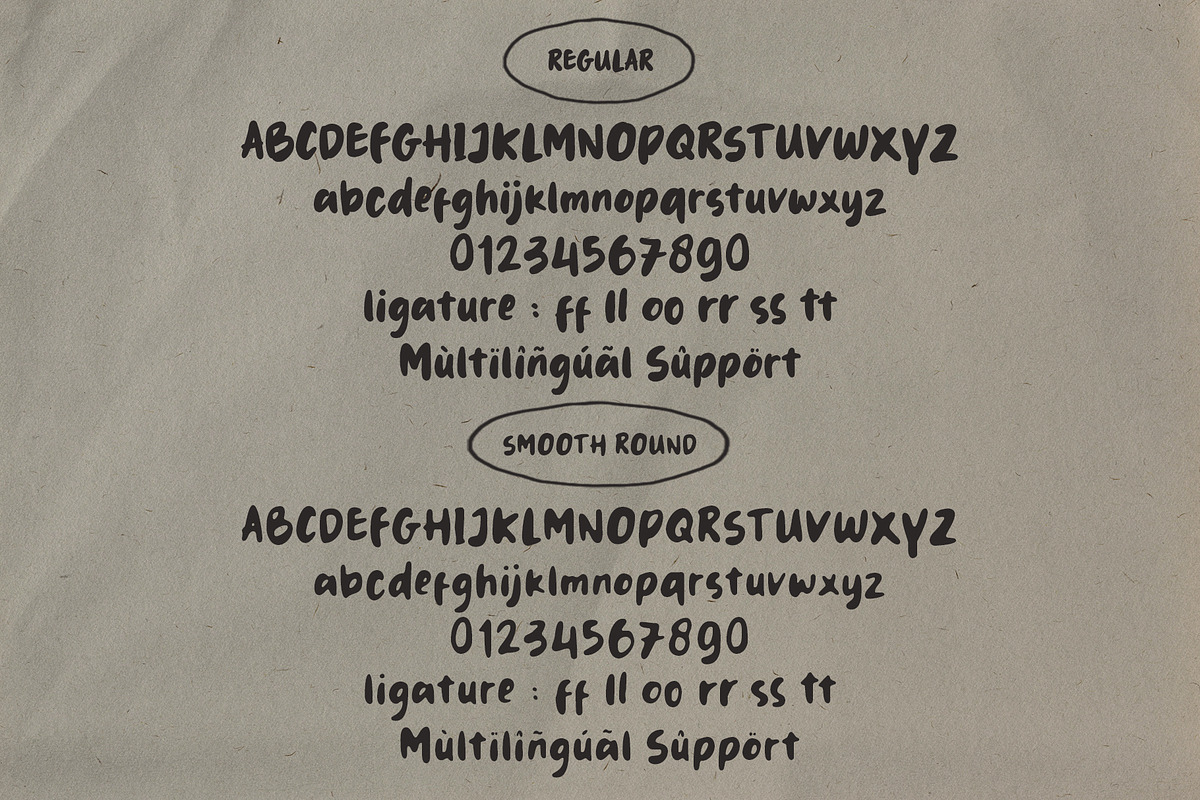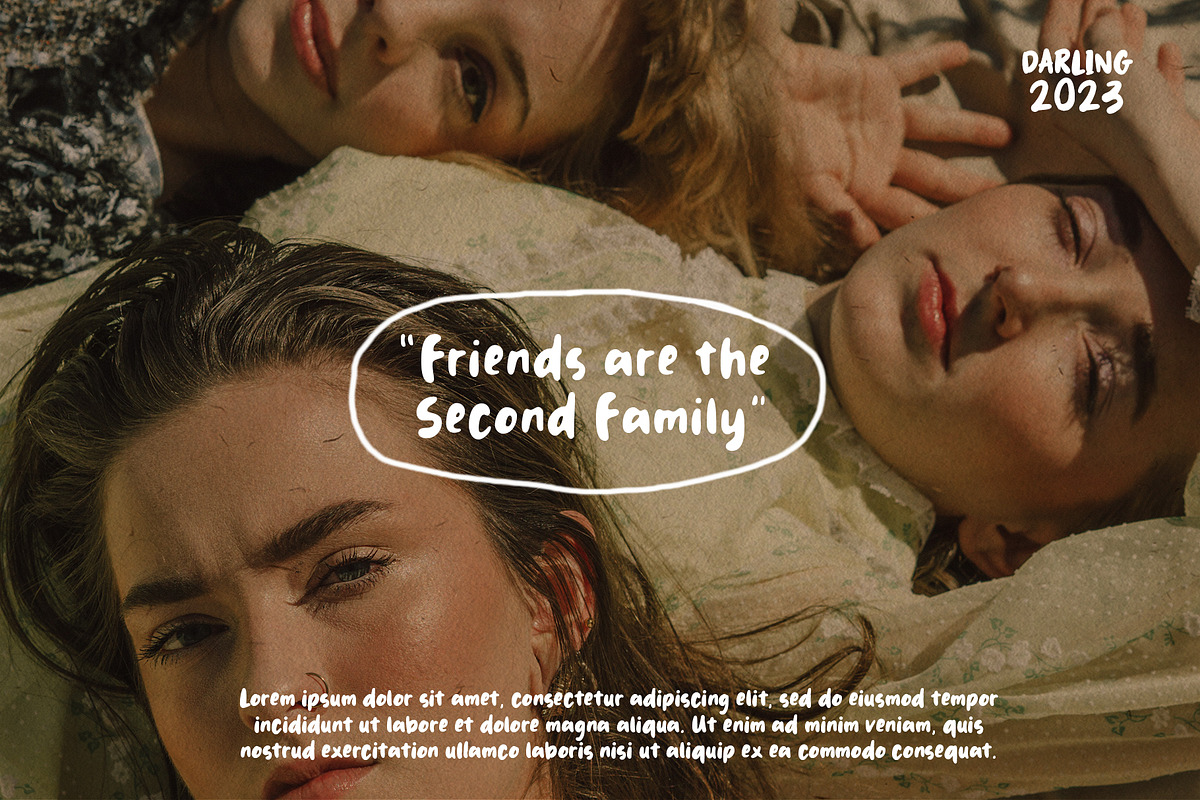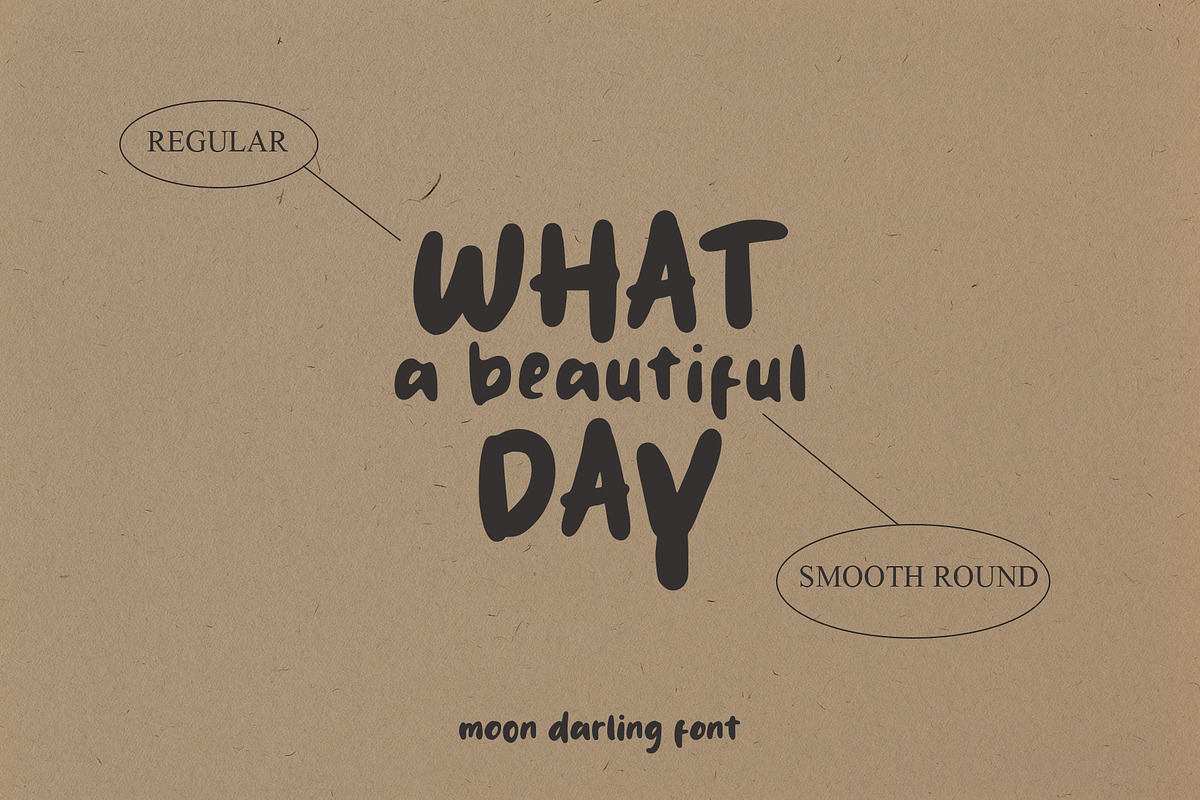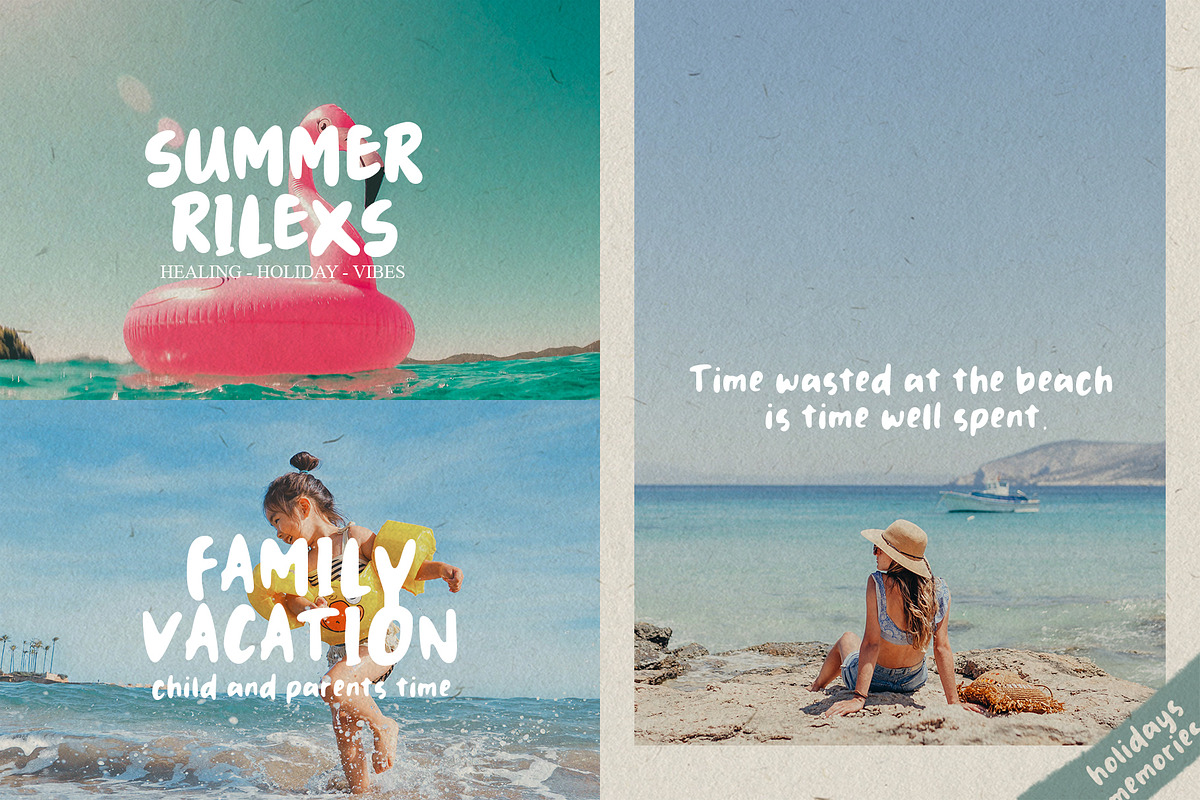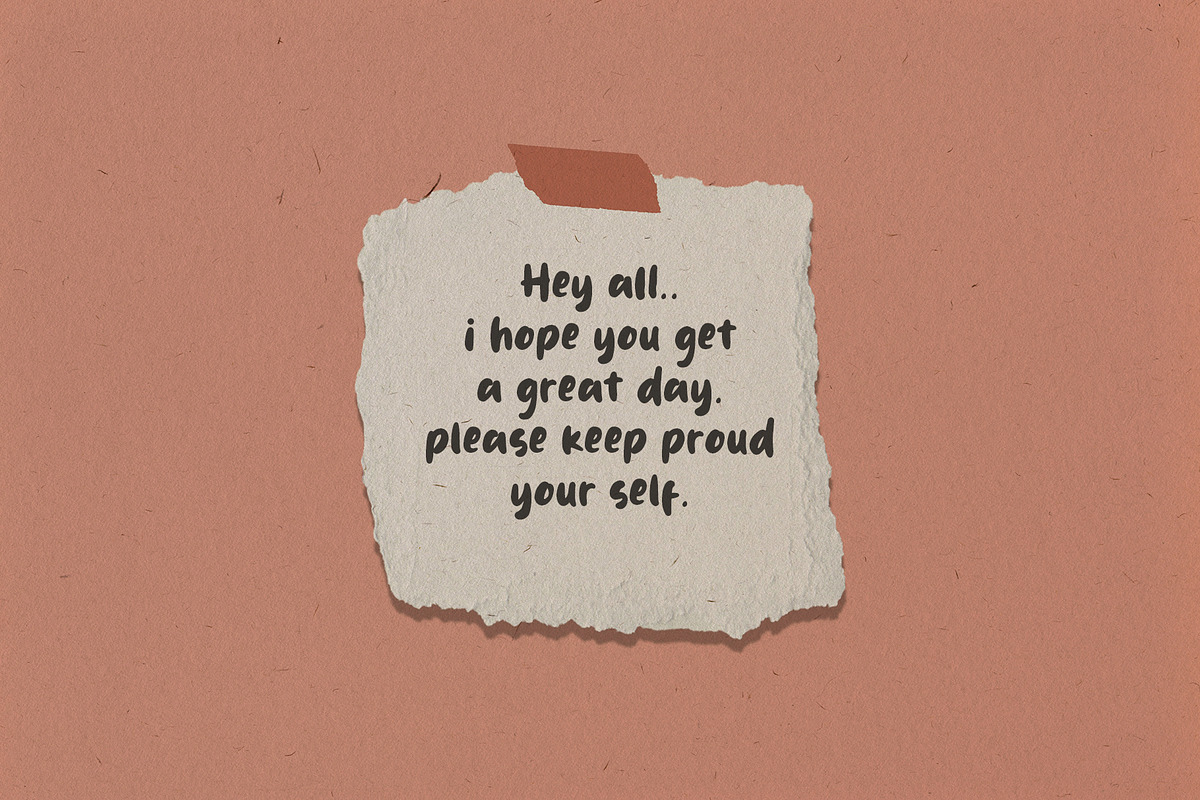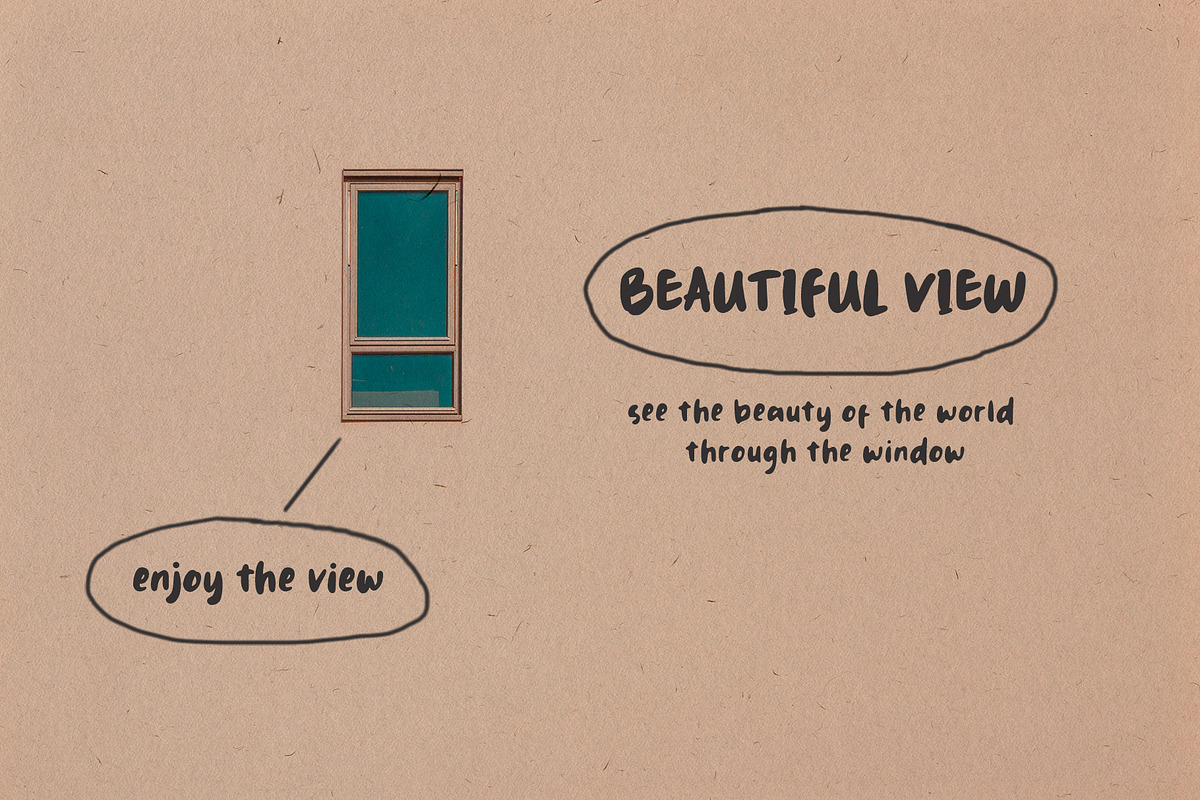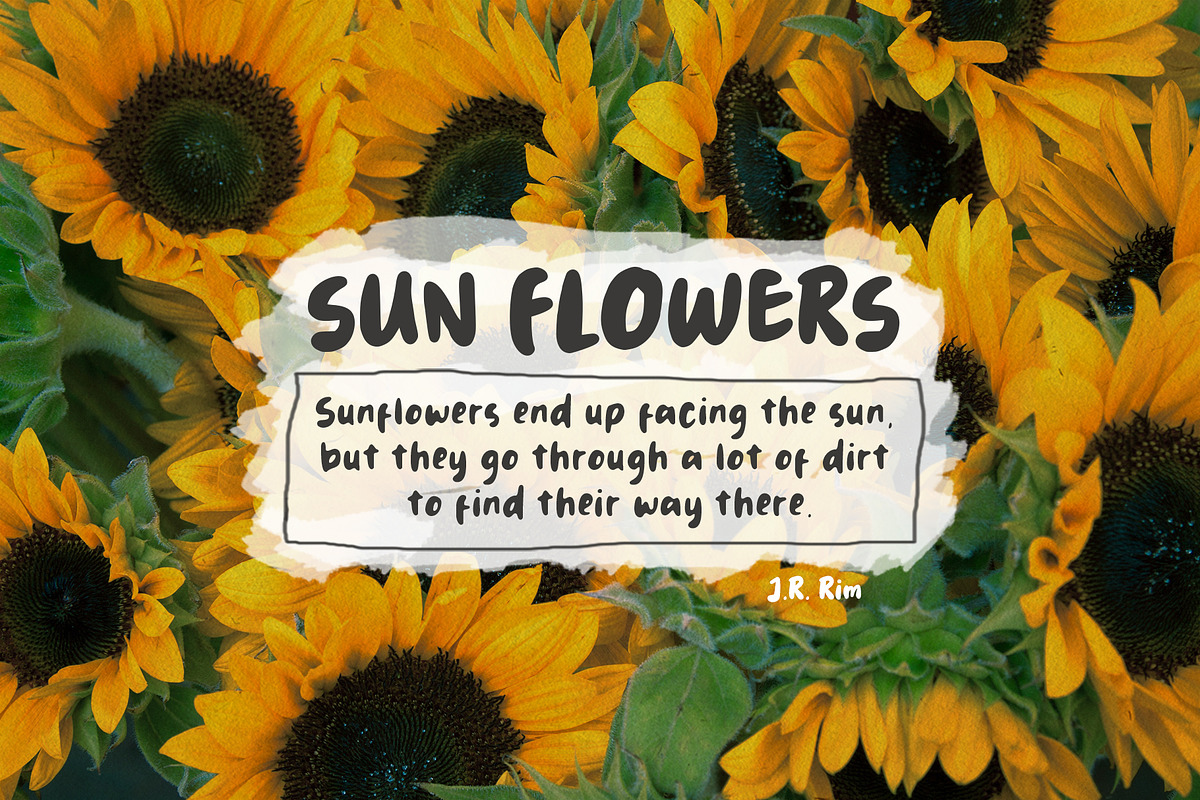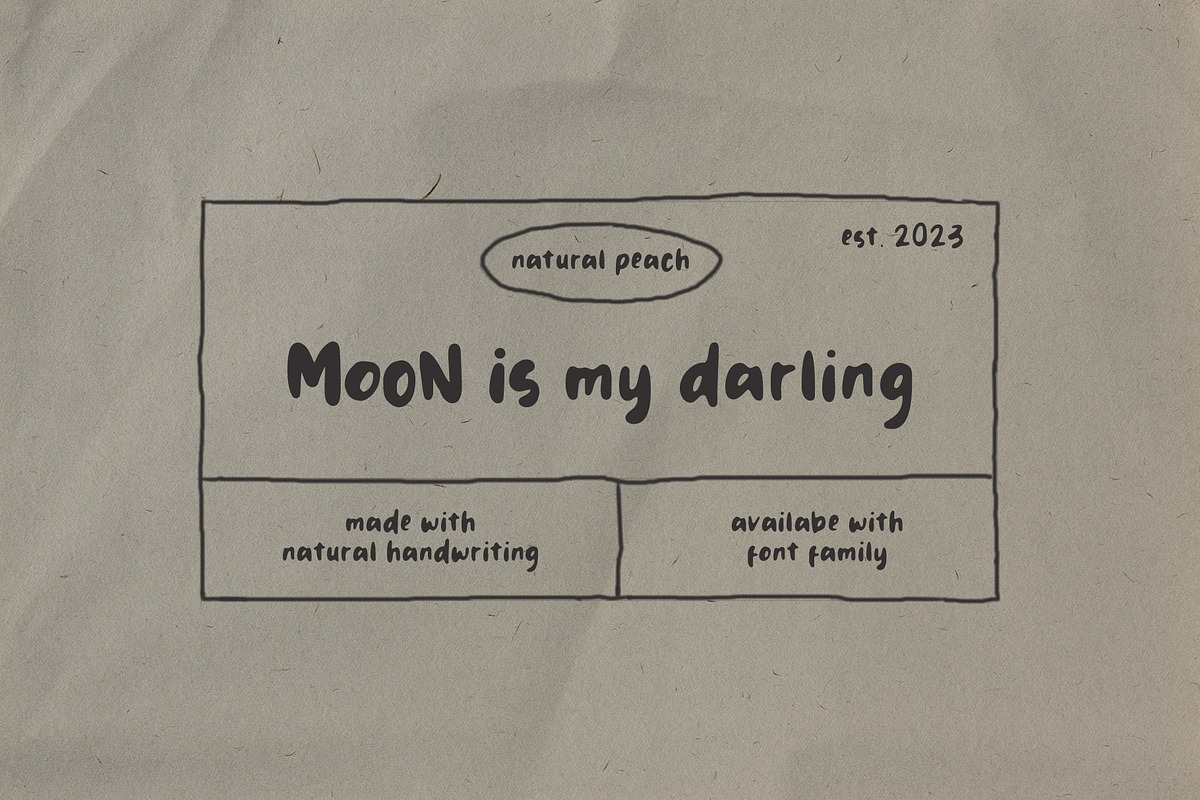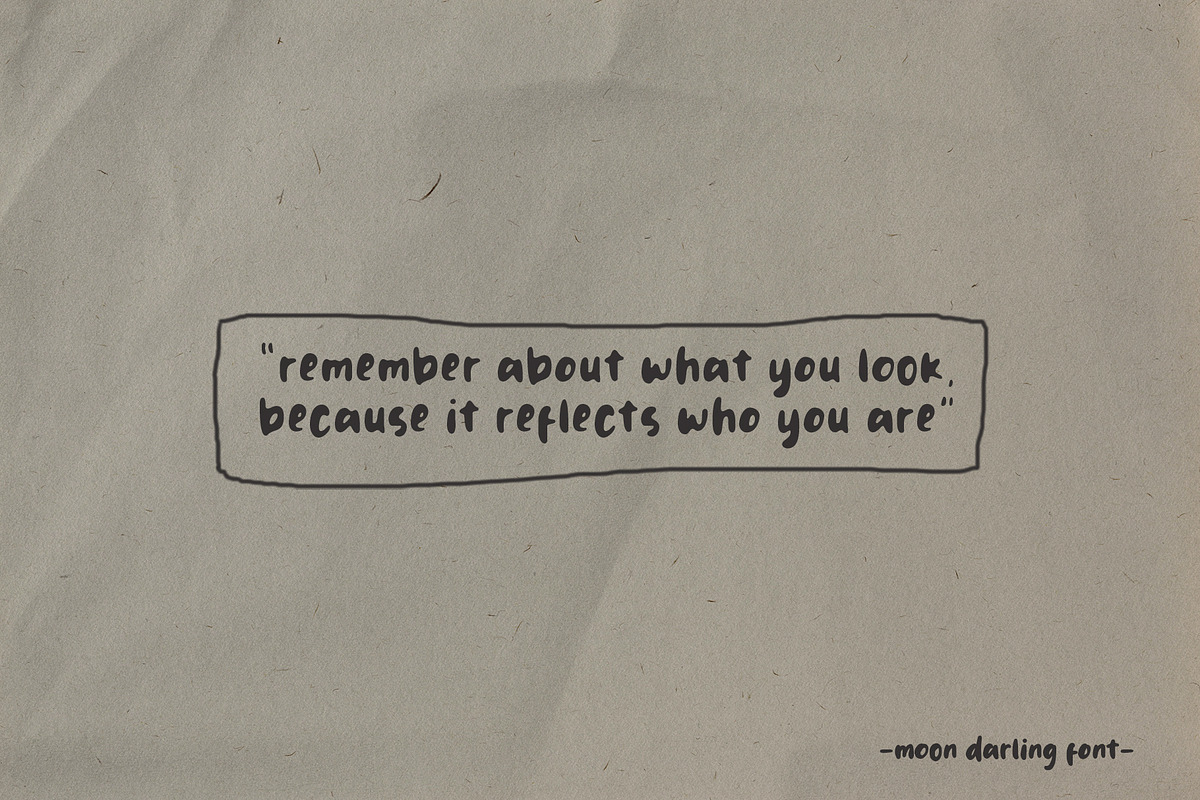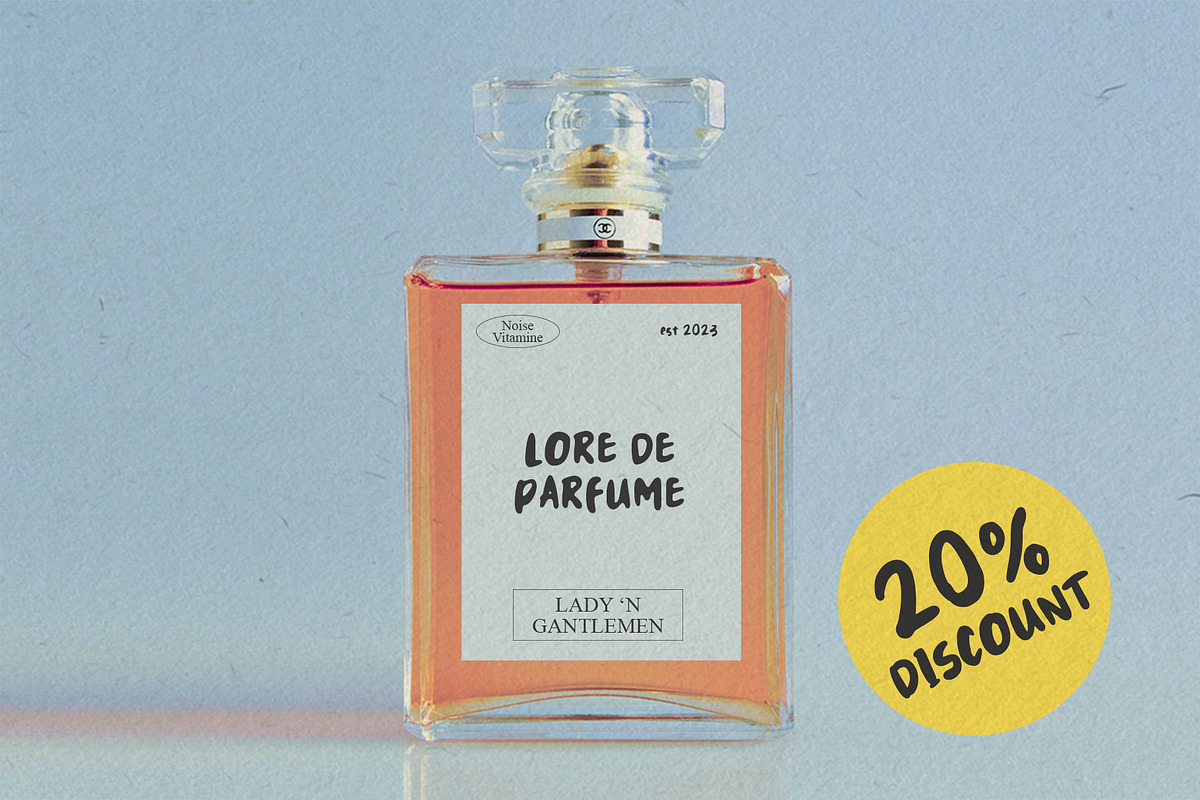
Moon Darling - Natural Handwriting
Moon Darling is natural handwriting font with messy round texture. Aesthetics and unique vibes make's good for your display designs.